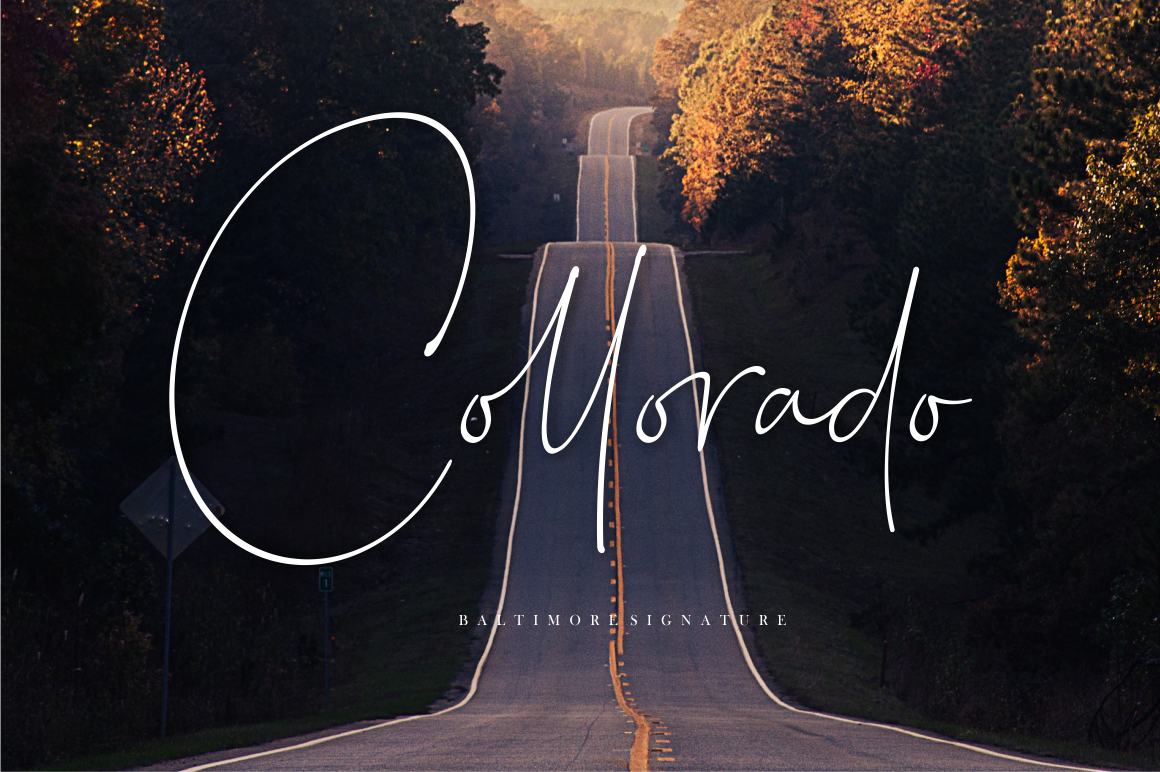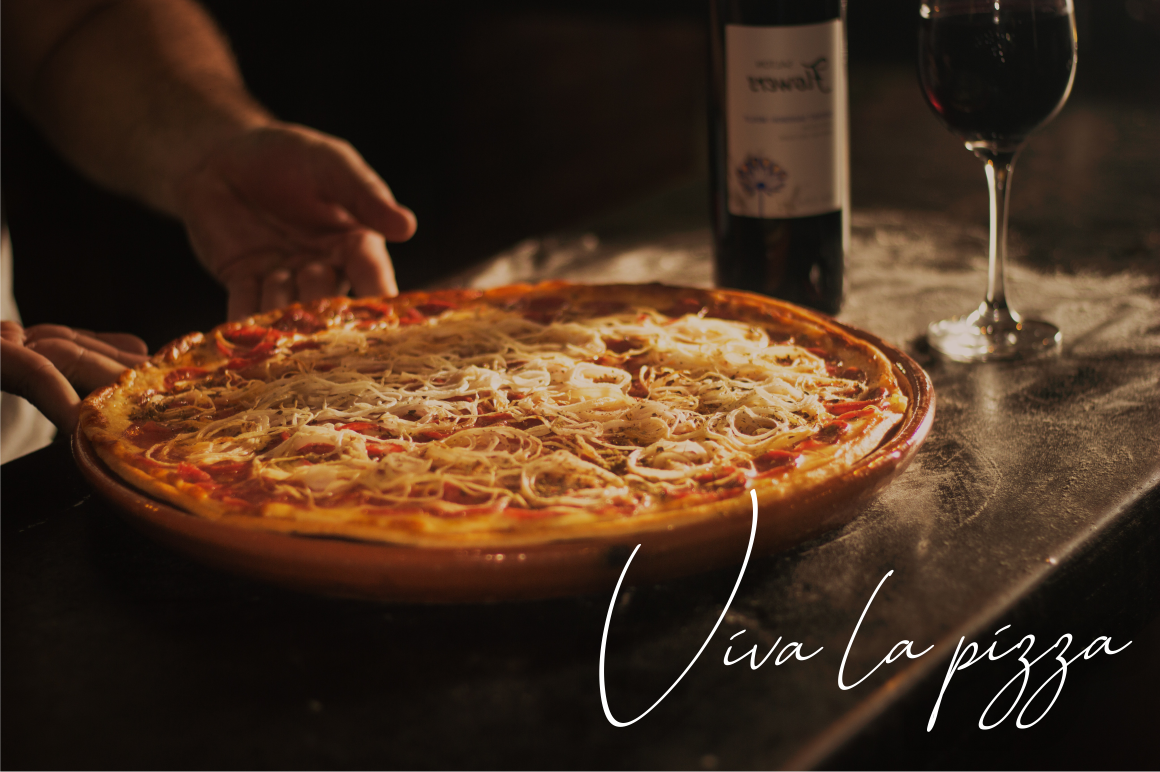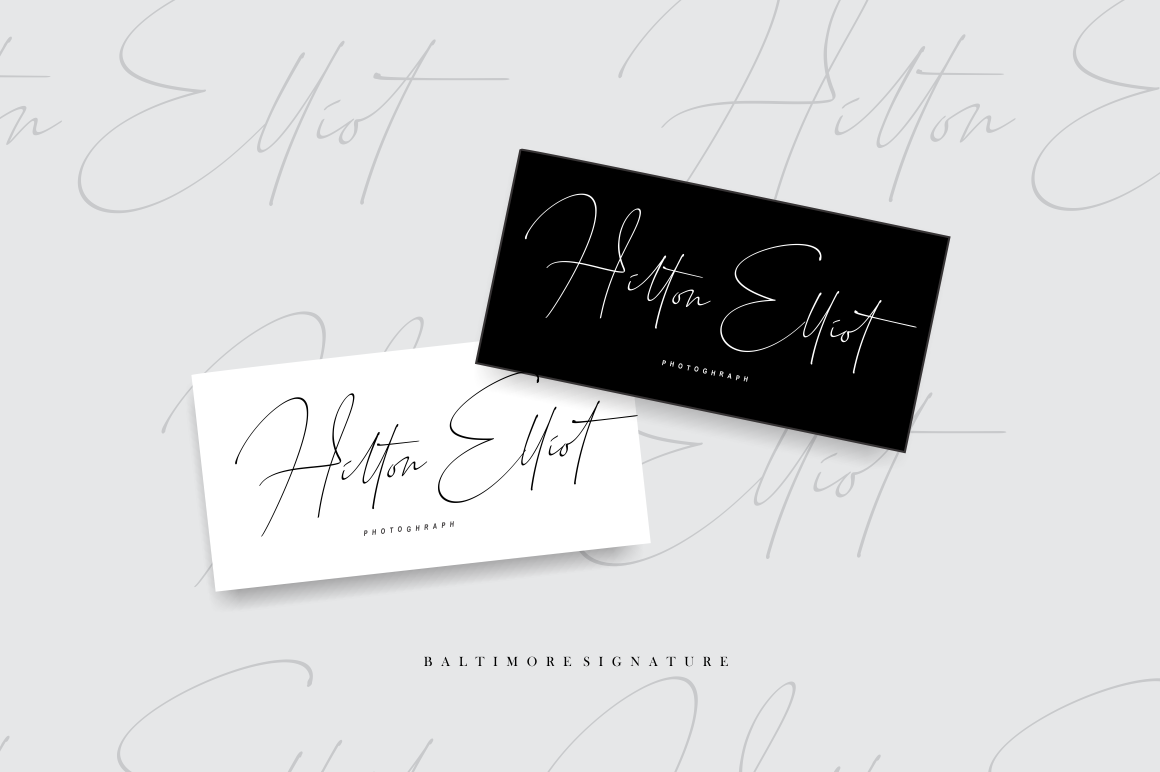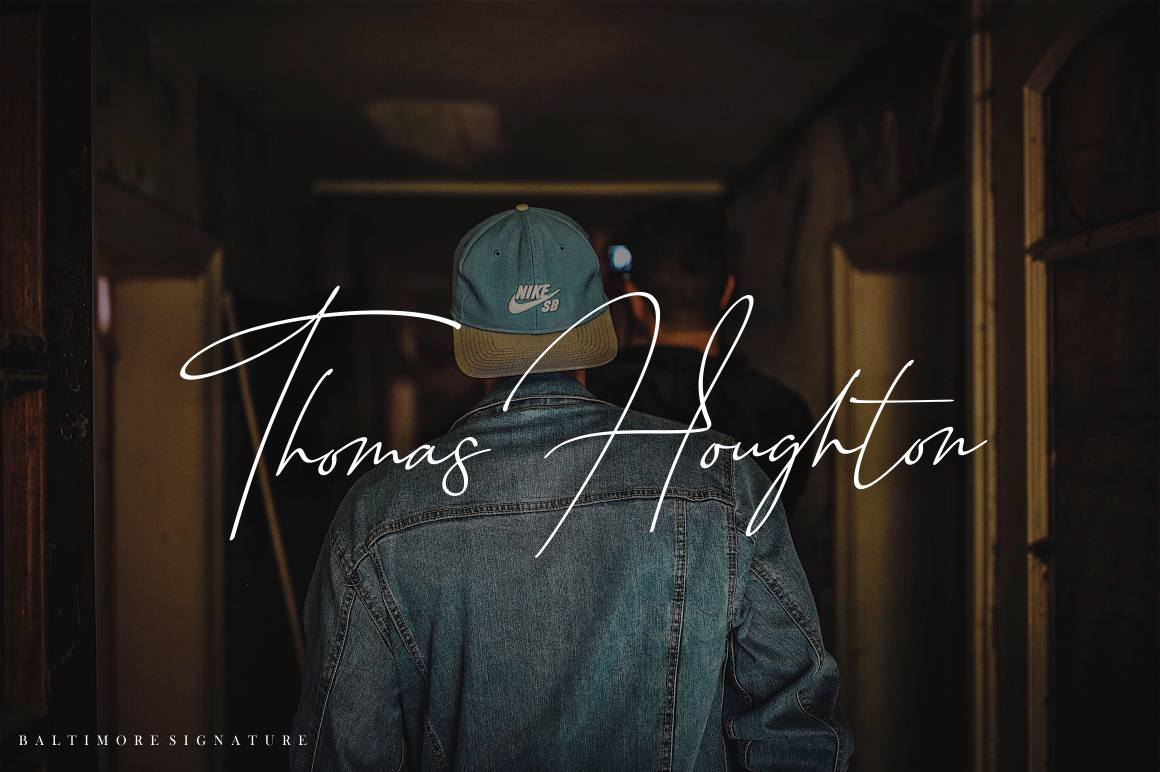
Baltimore Free Font
Baltimore Free Font is a new modern signature with elegant lines make this font perfect for your personal branding and an awesome project, such as logos, invitations, stationery, wedding designs, social media posts, advertisements, product packaging, product designs, labels, photography, watermarks, special events and much more. This free typeface was designed by a talented Yusron Billah. If you like it don’t forget to check out the full version.